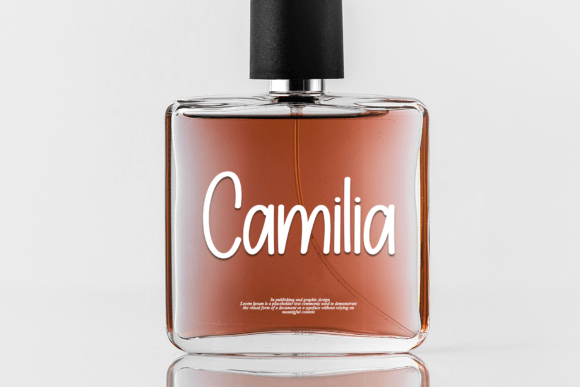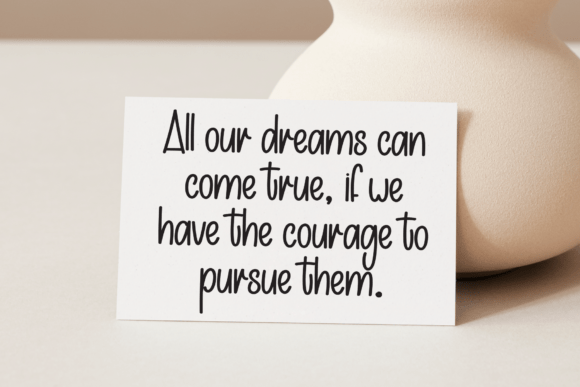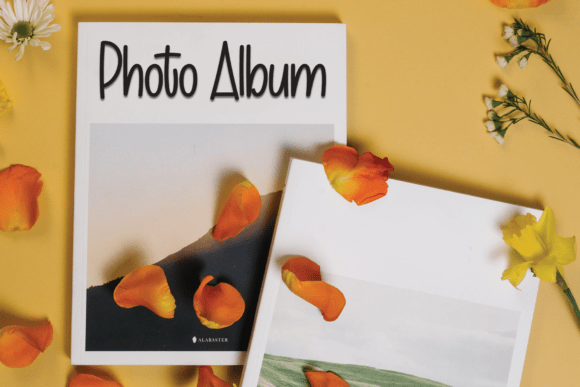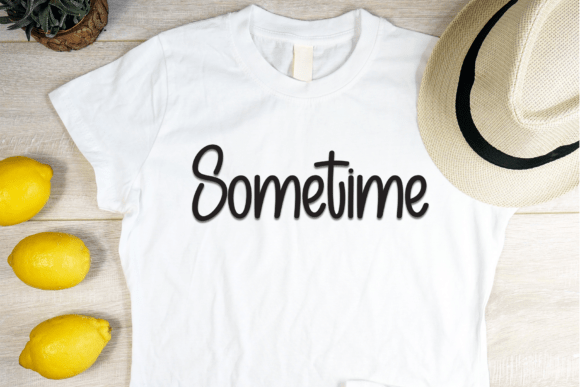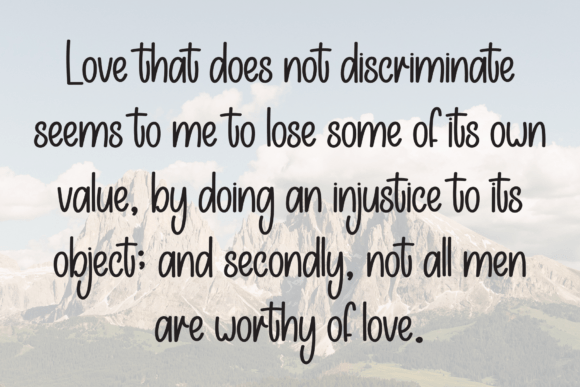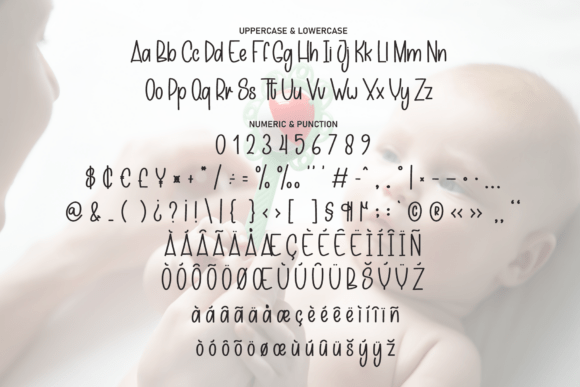
Handwritten Charm: Unleashing the Magic of Baby Care Font
Who hasn’t scribbled down a heartfelt note to a loved one or jotted down a quick reminder in their own handwriting? There’s something inherently special about the imperfections and quirks that make our handwriting uniquely ours. As designers, we strive to capture this essence in our work, making it relatable and authentic to our audience. This is exactly where the Baby Care Font comes in – a beautiful, casual handwritten font that embodies the warmth and personality of everyday handwriting.
With its smooth strokes, relaxed curves, and naturally balanced letterforms, the Baby Care Font is the perfect addition to any design project. Whether you’re working on a branding campaign, creating packaging for a new product, or simply want to add a personal touch to your social media posts, this font delivers both readability and charm. Its effortless flow and versatile character make it an invaluable asset for designers looking to connect with their audience on a deeper level.
Baby Care Font Key Features
- Font Family: Baby Care Font is a custom-designed font family with multiple styles, including Regular, Bold, Italic, and Bold Italic.
- Unique Characteristics: The font features a soft, rounded design with a gentle, childlike feel, making it ideal for baby-related products, children’s books, and educational materials.
- Character Set: The font family includes a comprehensive character set, including Latin, Cyrillic, and Greek alphabets, as well as punctuation marks and symbols.
Designer Review: Baby Care Font
Overall, I think the Baby Care Font has some great qualities, but also some areas for improvement. Here are my thoughts:
- Unique and playful characters: The font has a lot of personality and is sure to grab attention.
- Customizable: The font comes in a range of weights and styles, making it easy to find the right fit for your project.
- Wide language support: The font supports a wide range of languages, making it a great choice for international projects.
- Limited legibility at small sizes: The font can become difficult to read at small sizes, which may be a concern for certain applications.
- No OpenType features: The font lacks OpenType features, which can limit its use in complex typographic layouts.
The Baby Care Font is a fun and playful font that’s sure to add some personality to your project. While it has some limitations, it’s a great choice for applications where you want to stand out and grab attention. Just be sure to use it wisely and consider the limitations when making your design decisions.
Tips for Getting the Most Out of Baby Care Font
Here are a few tips to help you get the most out of the Baby Care Font:
- Use the font in conjunction with other baby-themed graphics and images to create a cohesive look.
- Experiment with different font sizes and styles to add visual interest to your design.
- Use the font to create a clear and easy-to-read hierarchy of information.
The Baby Care Font is perfect for a variety of projects, including:
- Baby shower invitations and decorations.
- Children’s book covers and illustrations.
- Parenting blogs and websites.
- Watercolor illustrations of baby-related elements like bottles, pacifiers, or toys.
- Soft pastel colors to give a calming and soothing atmosphere.
- A simple border or frame to add a touch of elegance.
- Colorful icons and graphics related to baby care, like baby bottles, pacifiers, or baby blocks.